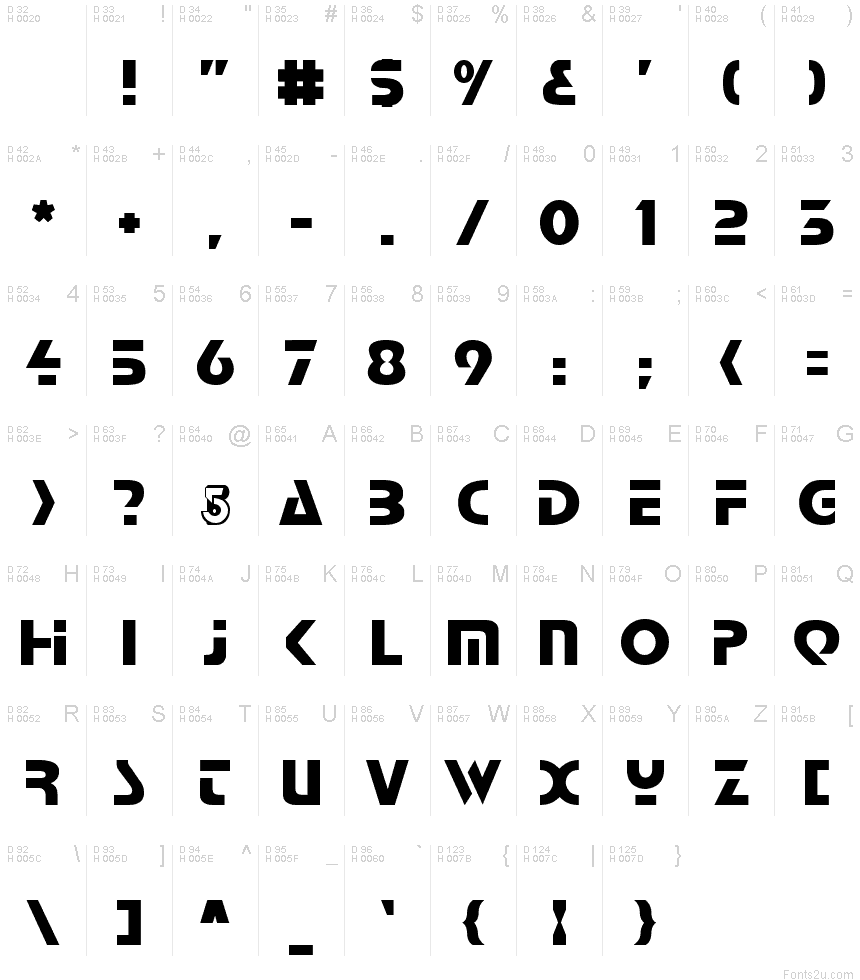
Babylon Industrial
This font is based on the background font used in the television show Babylon 5. Pretty to look at, but kinda hard to read if you're trying to find the local escape pod entrance in a panic. :)